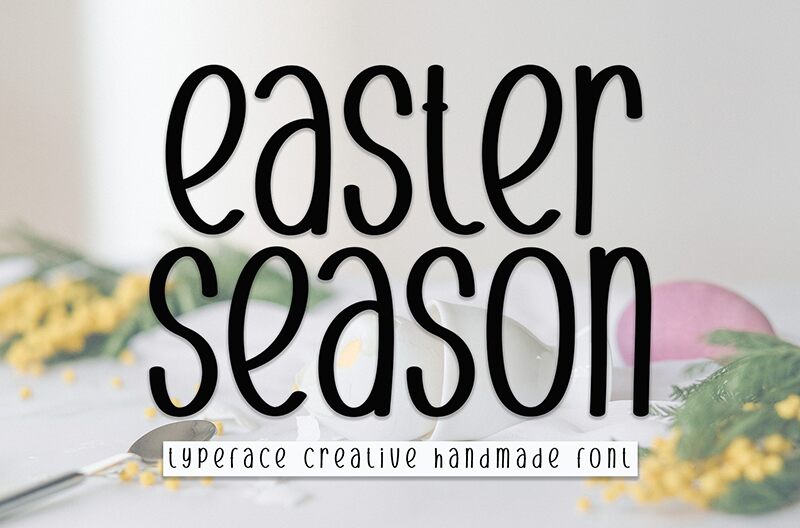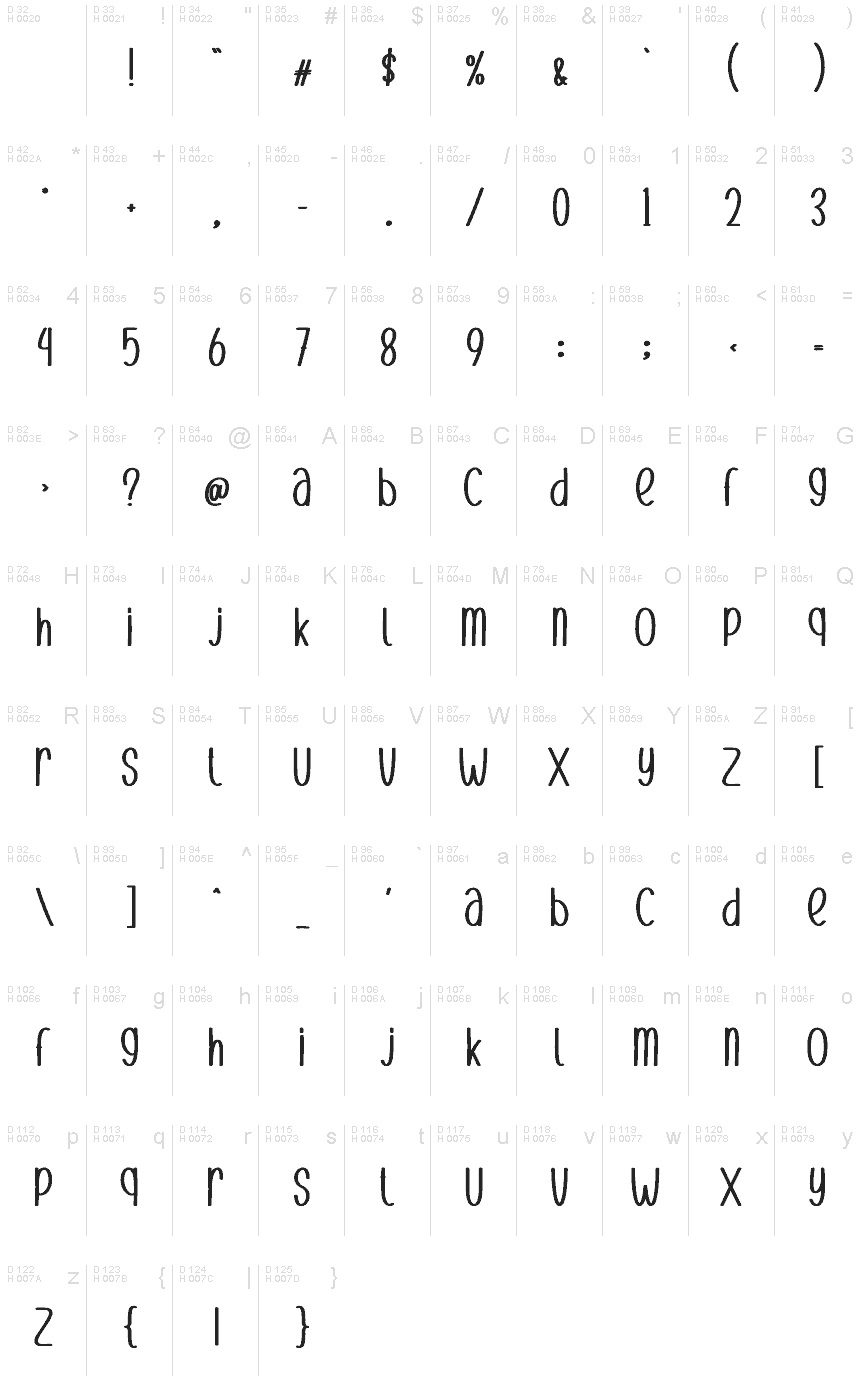
Easter Season
Easter Season font from Andi Moz is a condensed handwritten style font with a casual and inviting tone. Its friendly demeanor, combined with its modern aesthetic, is exhibited in the sleek letters which showcase readers an easiness in reading. The smooth flow and detailed curves deliver readability that’s unmatched in other fonts of similar natures.
Since the Easter Season free handwritten font speaks clearly (literally), use it for large-scale display designs at which you can bring all its details into audiences’ attention. Use it across branding projects like posters and ads or smaller designs such as invitations, stationery, packaging, web pages, and apps.